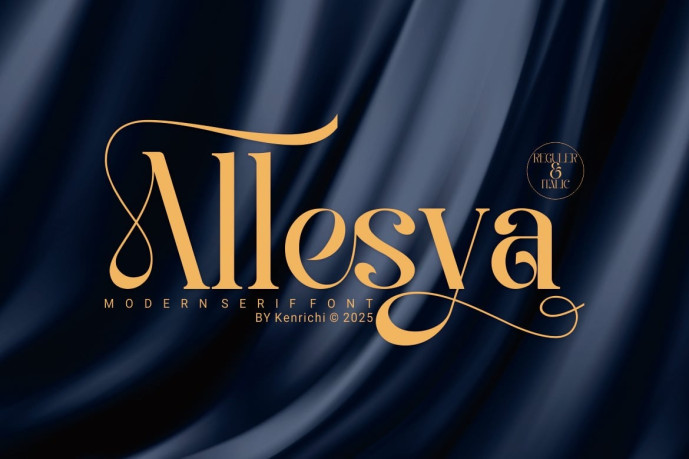
Allesya Font
Designer: Kenrichi
Allesya Font We are proud to present our new Allesya Font product
Allesya Font is a modern and authentic font.
Perfect for professional and branding needs of a product.
This font is suitable for any branding project such as quotes, logos, blog headers, posters, banners, letters, invitations, stationery,
and many more… Designed as a versatile and flexible tool that can be used on a range of projects and media.
exceptional in a wide range of contexts.